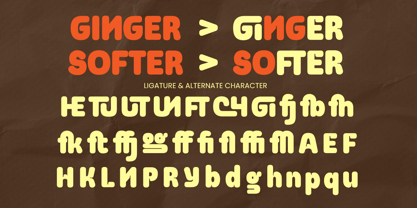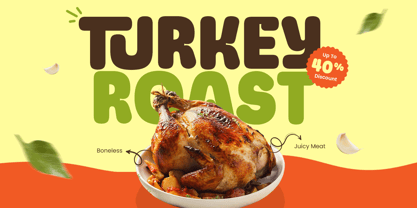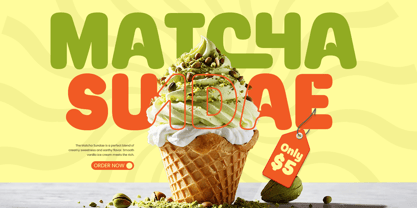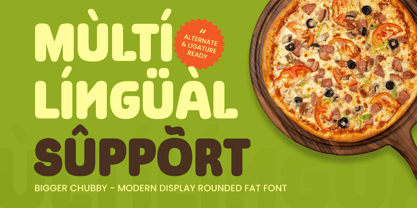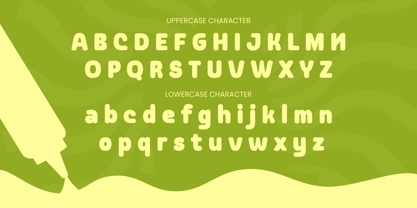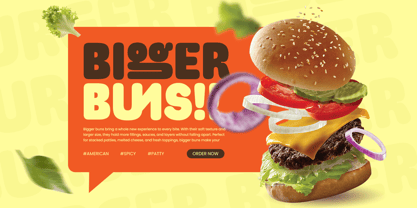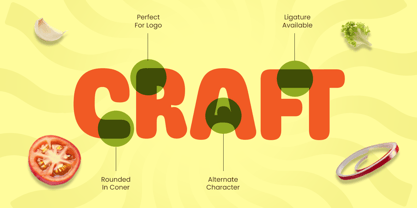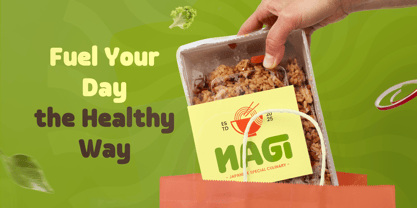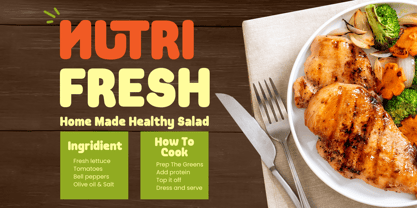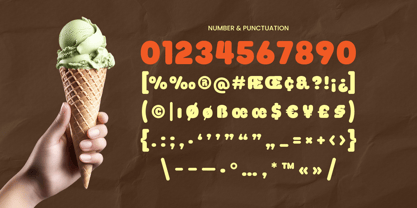
BIGGER CHUBBY is a modern display rounded fat font built to bring bold personality and cheerful impact into your design work. With its thick curves, soft edges, and playful proportions, this typeface creates a fun and approachable visual style that instantly stands out. It is the perfect choice for designers looking for a rounded display font with a strong, friendly character.
Ideal for logos, snack packaging, kids branding, posters, social media graphics, and product labels, BIGGER CHUBBY delivers a bold statement while keeping the mood light and inviting. Its fat rounded letterforms make it especially effective for headline design, packaging displays, merchandise, and cheerful brand identity systems that need a memorable and modern look.
Whether you are creating for food brands, playful campaigns, lifestyle products, or creative editorial layouts, BIGGER CHUBBY adds warmth, charm, and commercial appeal. This modern rounded fat font helps your typography feel expressive, eye-catching, and easy to love across both print and digital media.
BIGGER CHUBBY – Rounded Fat Display Features
Bold rounded letterforms with a soft and playful appearance
Modern display style perfect for fun and friendly branding
Ideal for logos, packaging, posters, and headline design
Great for food brands, kids projects, and social media visuals
Includes uppercase, lowercase, numerals, and punctuation
OpenType features for creative typographic flexibility
Works beautifully in both digital and print projects
Multilingual Support
Bring playful power to your branding with BIGGER CHUBBY – a bold rounded display font made to grab attention and spread joy. 🍔
Bigger Chuby